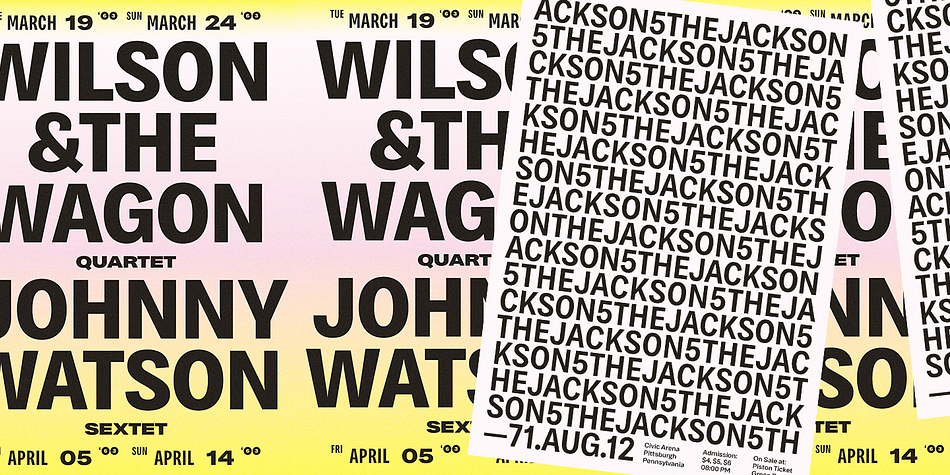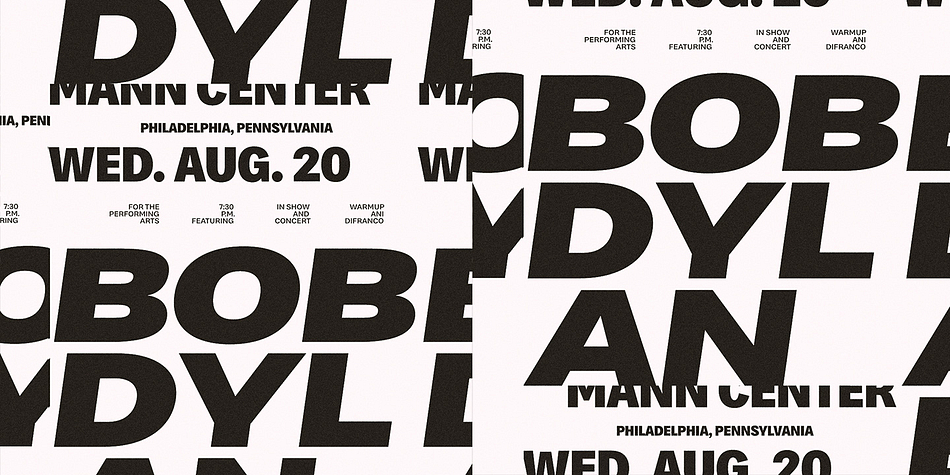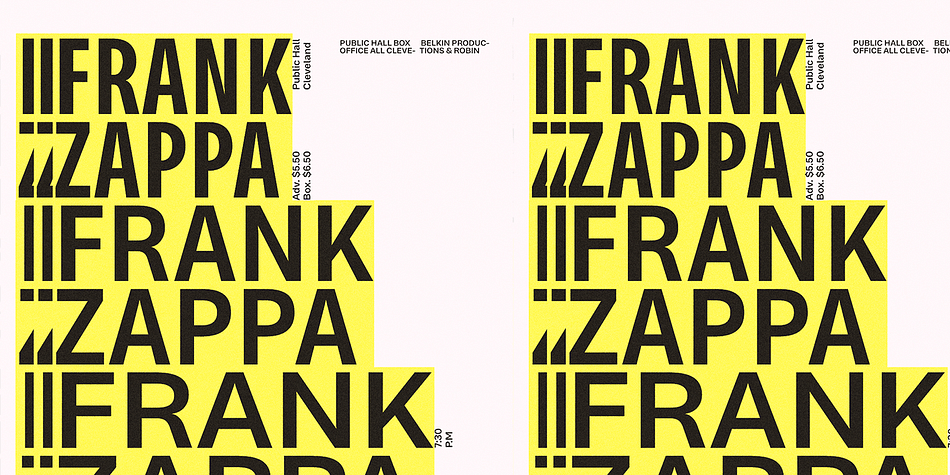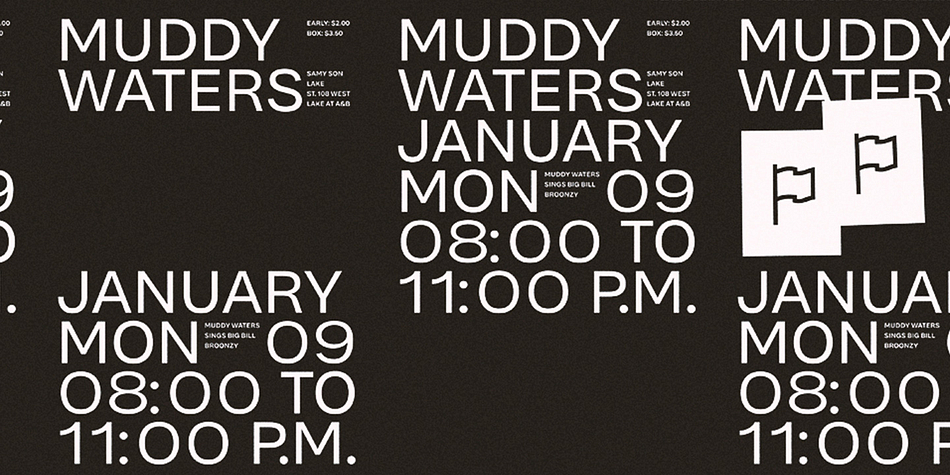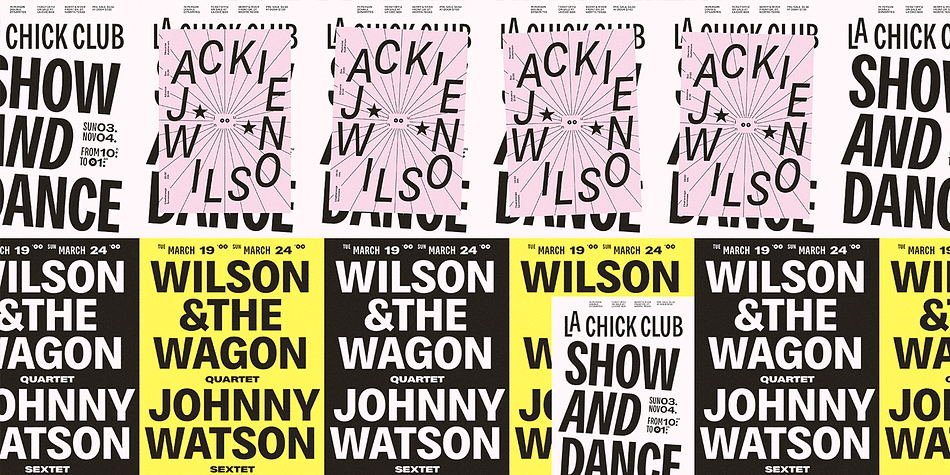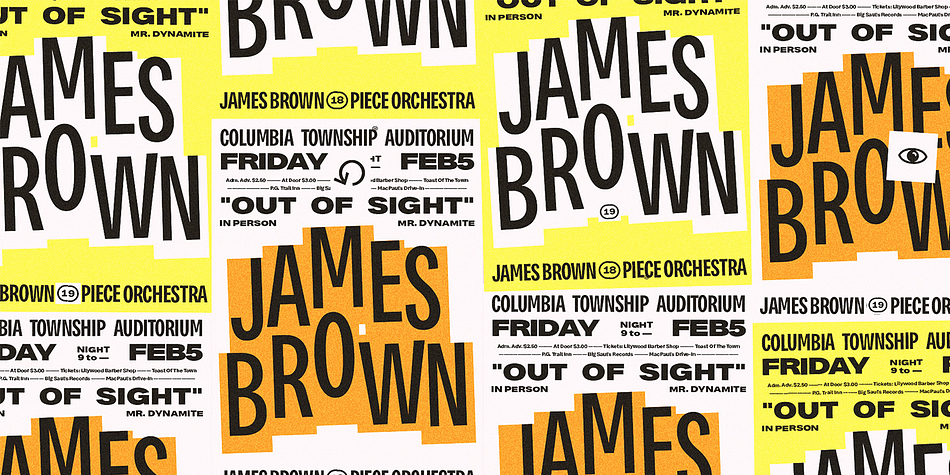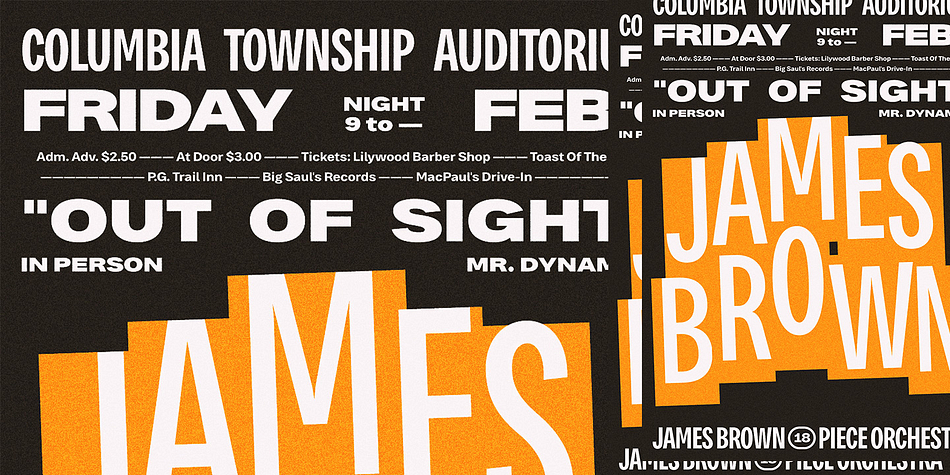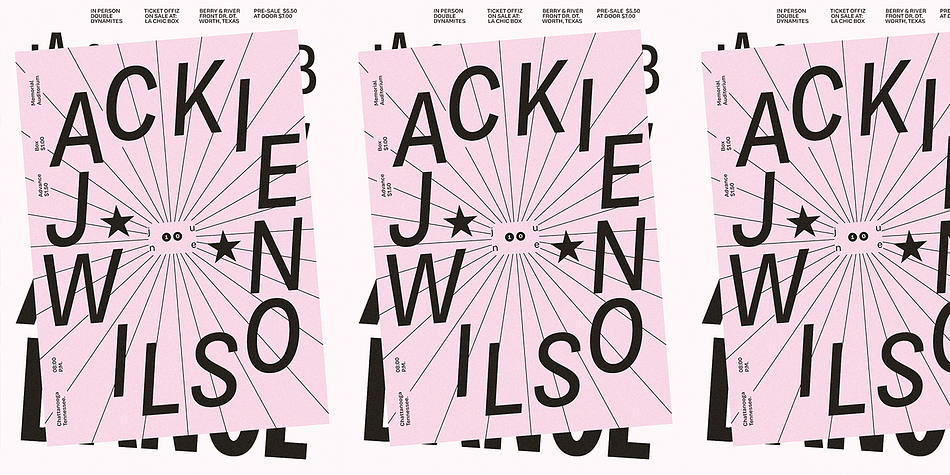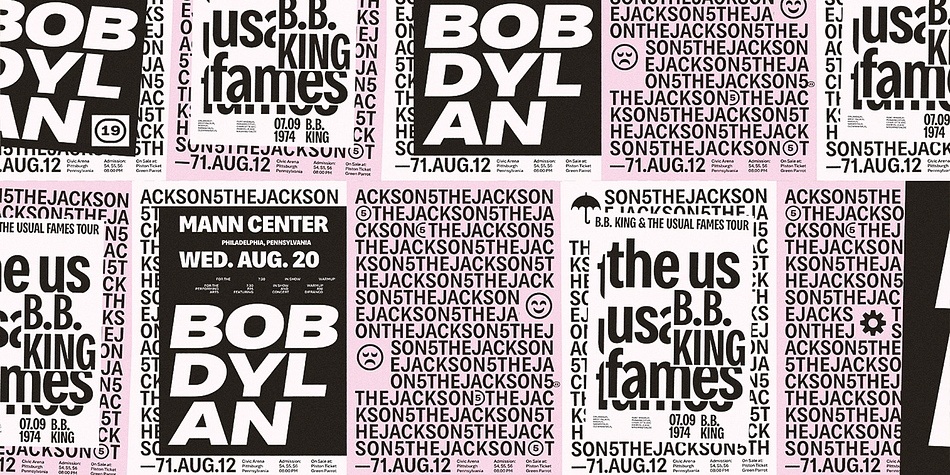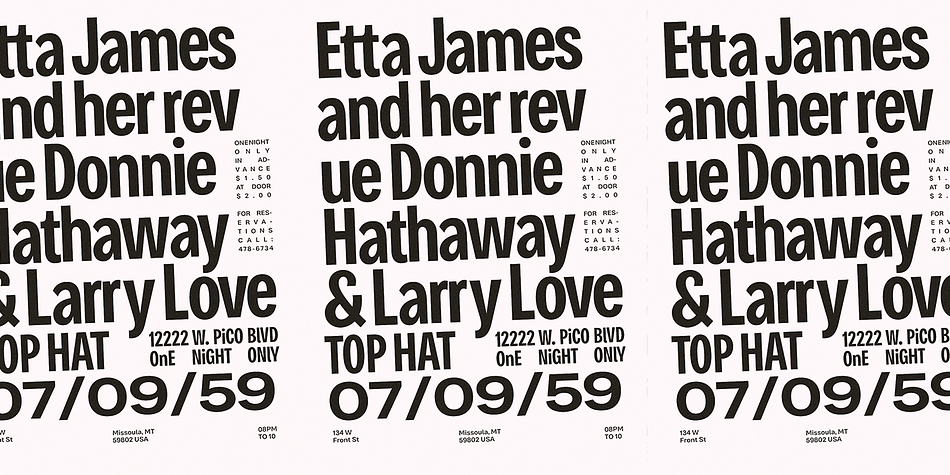
Bruta Global is a sans serif font family. This typeface has sixty-four styles and was published by Ndiscover.
Bruta is a contemporary sans-serif grotesque typeface, conceived to become the Swiss army knife of your font library.
Inheriting the modernist approach of the grotesque fonts, Bruta aims to be a rational and neutral typeface suitable for a wide range of applications. Whether it’s used for print or screen, in large or small sizes, for magazines or branding, Bruta will stay on your font library for long time.
Loaded with Opentype Features, +100 emojis, Greek and Cyrillic support, Bruta can easily become your new default font.